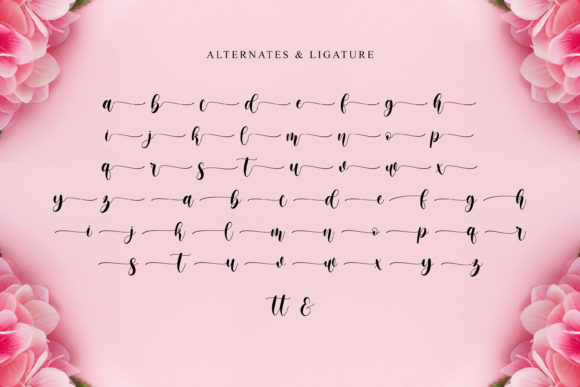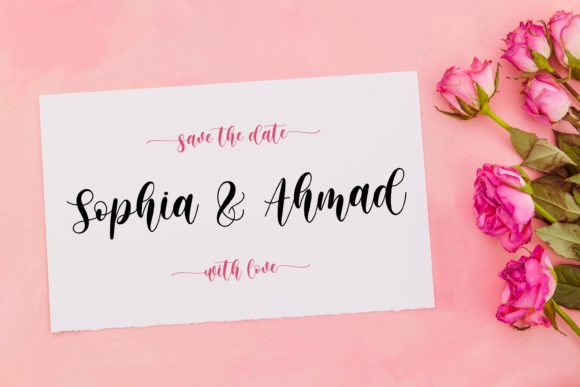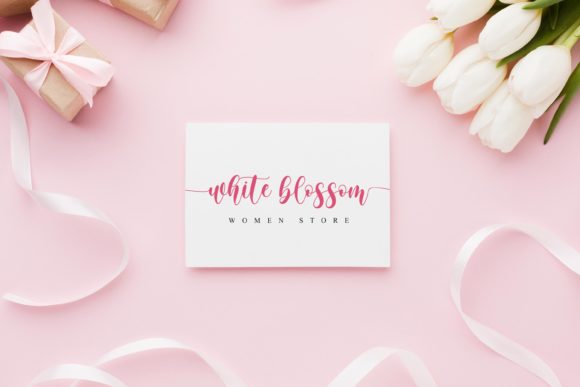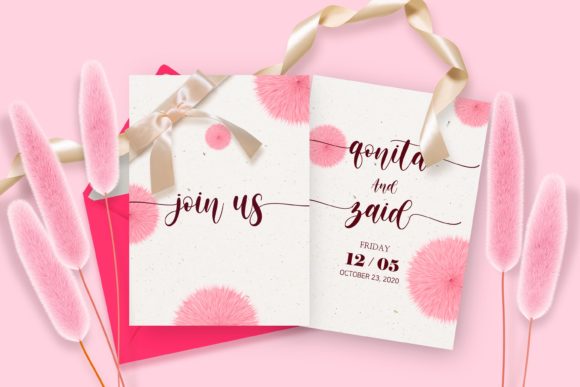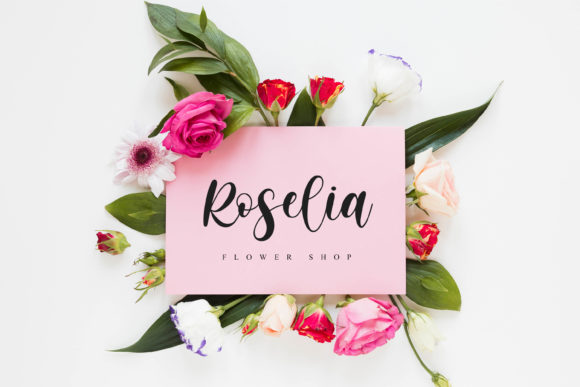
About Memorita Font
Memorita is a romantic and sweet calligraphy typeface with characters that dance along the baseline. It looks beautiful on a variety of designs requiring a personalized style, such as wedding invitations, thank you cards, weddings, greeting cards, logos and so on.